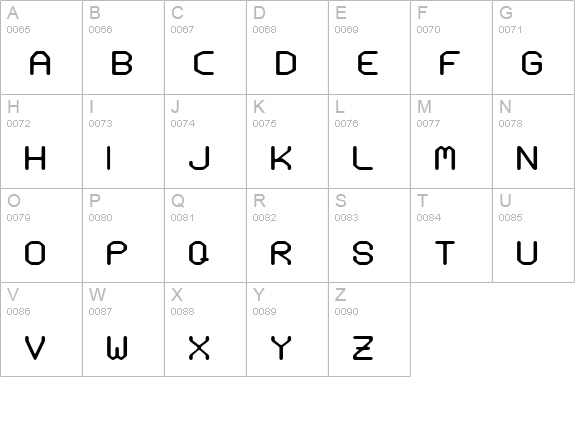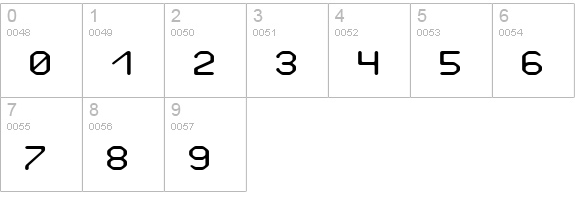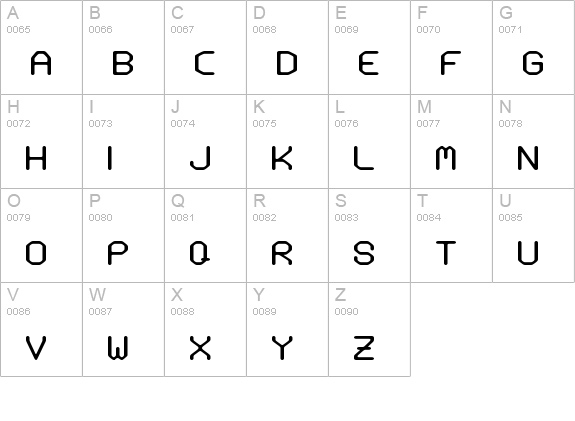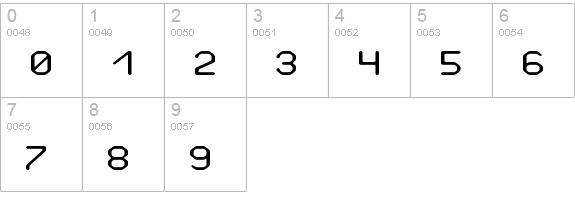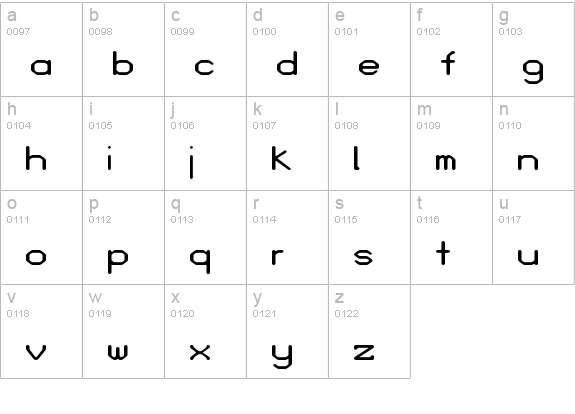
Love Parade widebold Font Details
Love Parade widebold font is a stunning display typeface that exudes a sense of love, passion, and creativity. Its bold and wide design makes it perfect for making a bold statement in any design project. The font features sleek curves and sharp edges that give it a modern and stylish look. With its unique personality and versatility, Love Parade widebold font is sure to make your designs stand out. This font is freely available to download at FontsMarket.com, making it easily accessible for all your design needs. Whether you're working on a poster, logo, branding, or any other creative project, Love Parade widebold font is the perfect choice to add a touch of love and excitement to your designs. Download it now and let your creativity soar with this beautiful and expressive typeface.